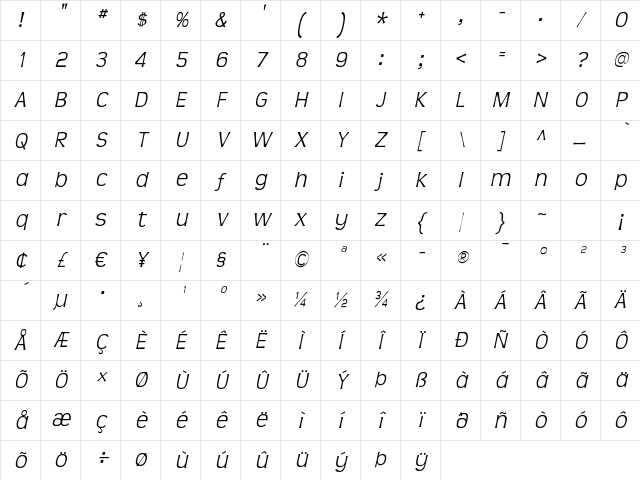
Teen Light Italic Free Font
Teen Light Italic
Designer: Ray Larabie & Martin Archer
Design Context for Teen Light
Teen Light is a composed and adaptable typeface that performs quietly and consistently across a wide range of design contexts. The slanted form adds forward momentum and visual energy. Its slender proportions lend an understated elegance to any composition.